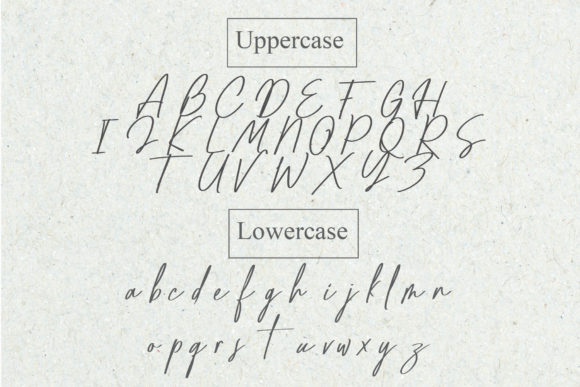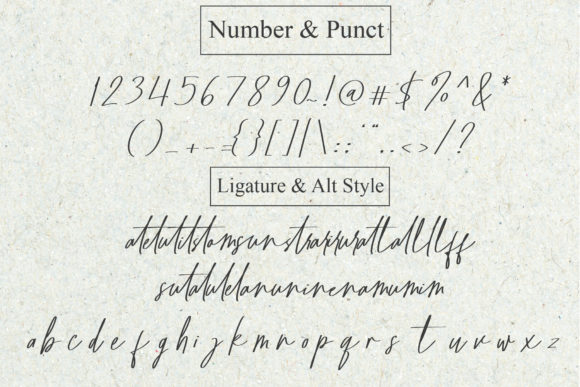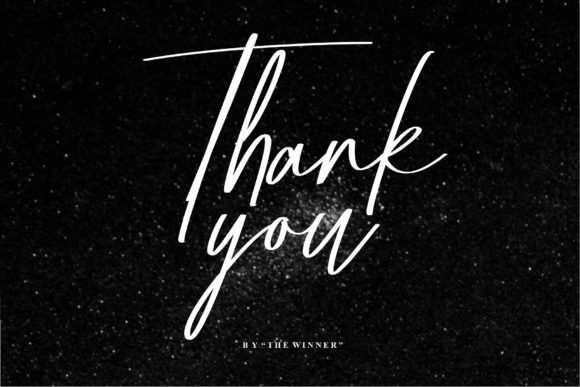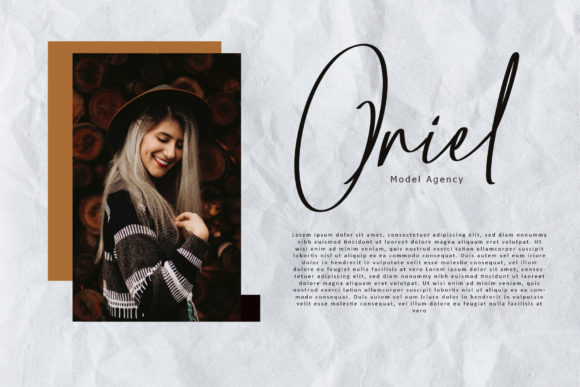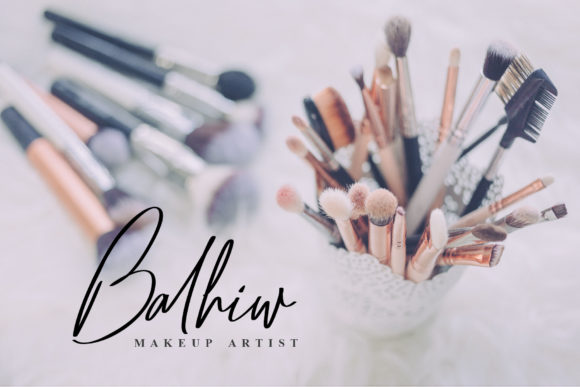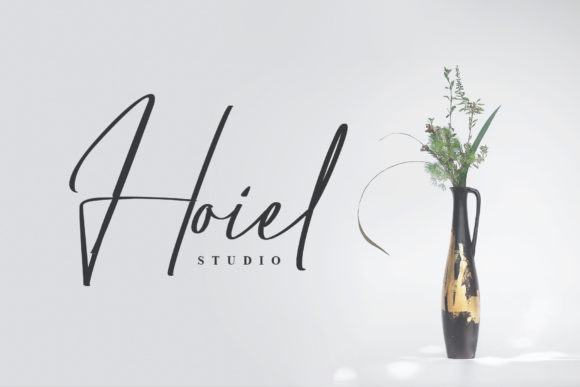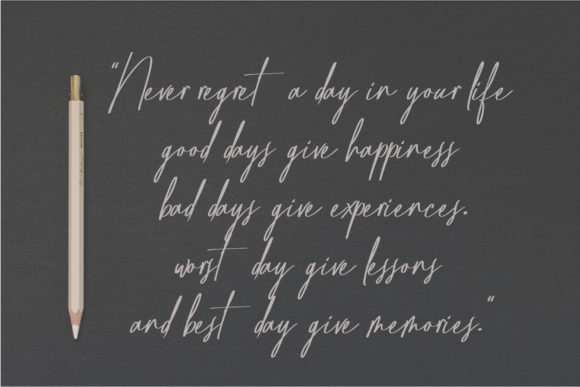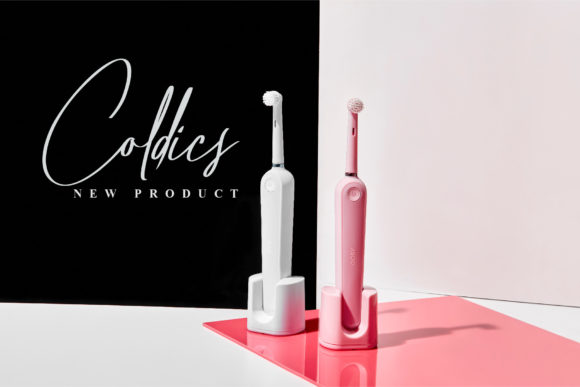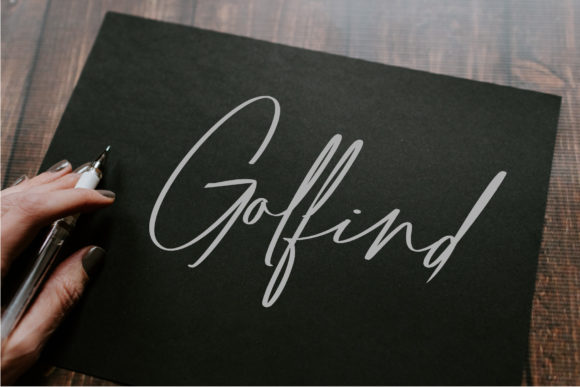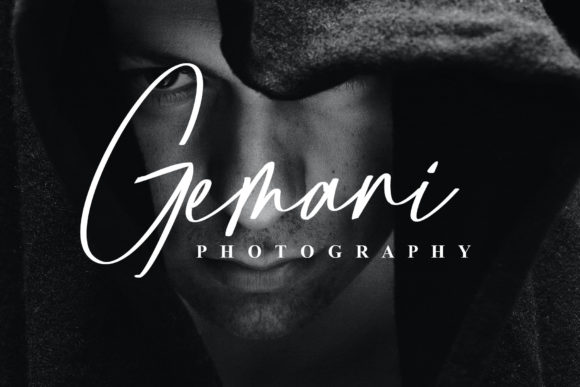
Golfind Font
About Golfind Font
Golfind is a simple and sleek script font. It has a clean, thin and smooth vibe and it will be a hit for any design that you want to add it to.